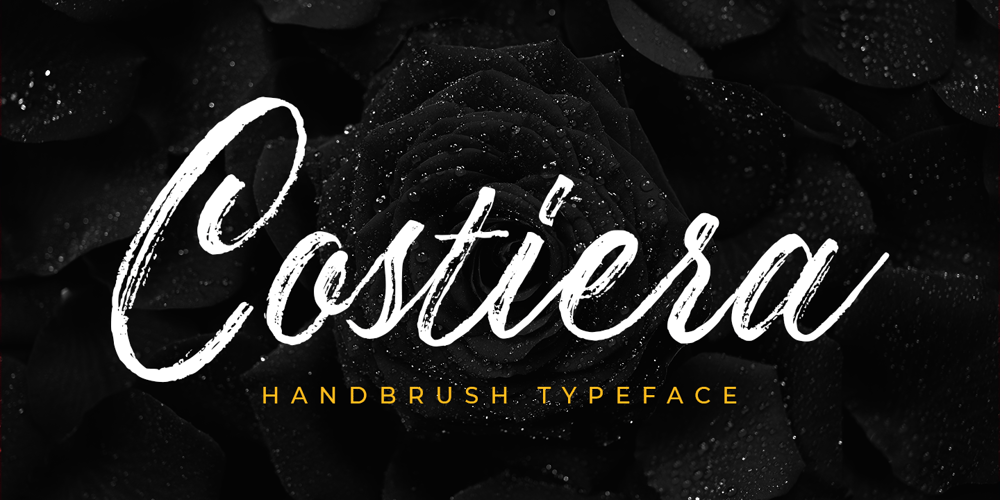
Costiera
Costiera font
Costiera Font Family was designed by Abdul Malik Wisnu and published by Almarkha Type. Costiera contains 2 styles and family package options. Introducing Costiera – Elegant Handbrush is a brush script that is written casually and quickly. Letters are made with brushes on paper. Then scanned and carefully drawn into vector format. That is why Costeria has charming, authentic and relaxed characteristic,has 2 styles of regular and slant variations with a more natural look to your text with a more natural look to your text. You can activate Ligature OpenType panel to make these two styles. It also has many alternatives and underlines that make your text and design more interesting. Costiera is perfect for homeware designs,branding projects, Logo design,Quotes roduct packaging Works on PC & Mac Simple installationsAccessible in the Adobe Illustrator, Adobe Photoshop, Adobe InDesign, even work on Microsoft Word. PUA Encoded Characters – Fully accessible without additional design software. Fonts include multilingual support Image used : All photographs/pictures/vector used in the preview are not included, they are intended for illustration purpose only. Cheers!Thank You